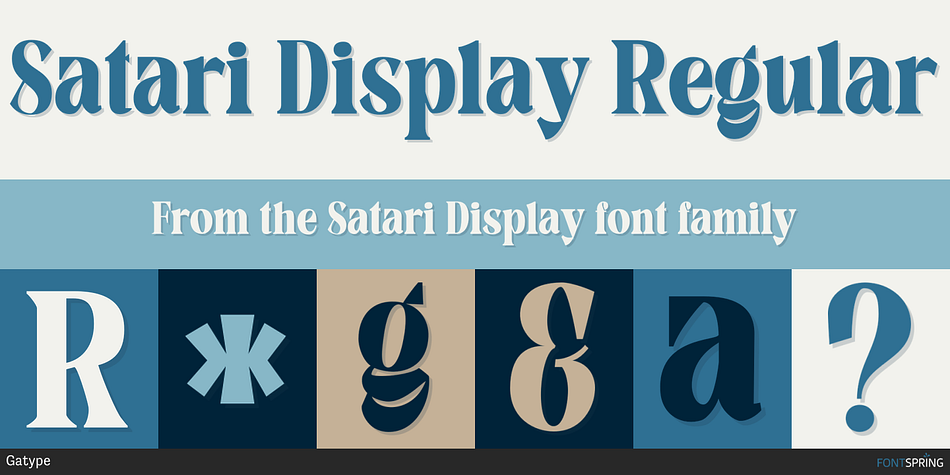
Satari Display
Satari Display is a display serif font family published by Gatype.
Satari Display is a fancy, bold font with multilingual support. This is a very versatile font that works well in both large and small sizes.
Satari Display is perfect for branding projects, logos, wedding designs, social media posts, advertisements, product packaging, product design, labels, photography, watermarks, invitations or any project you’re working on.